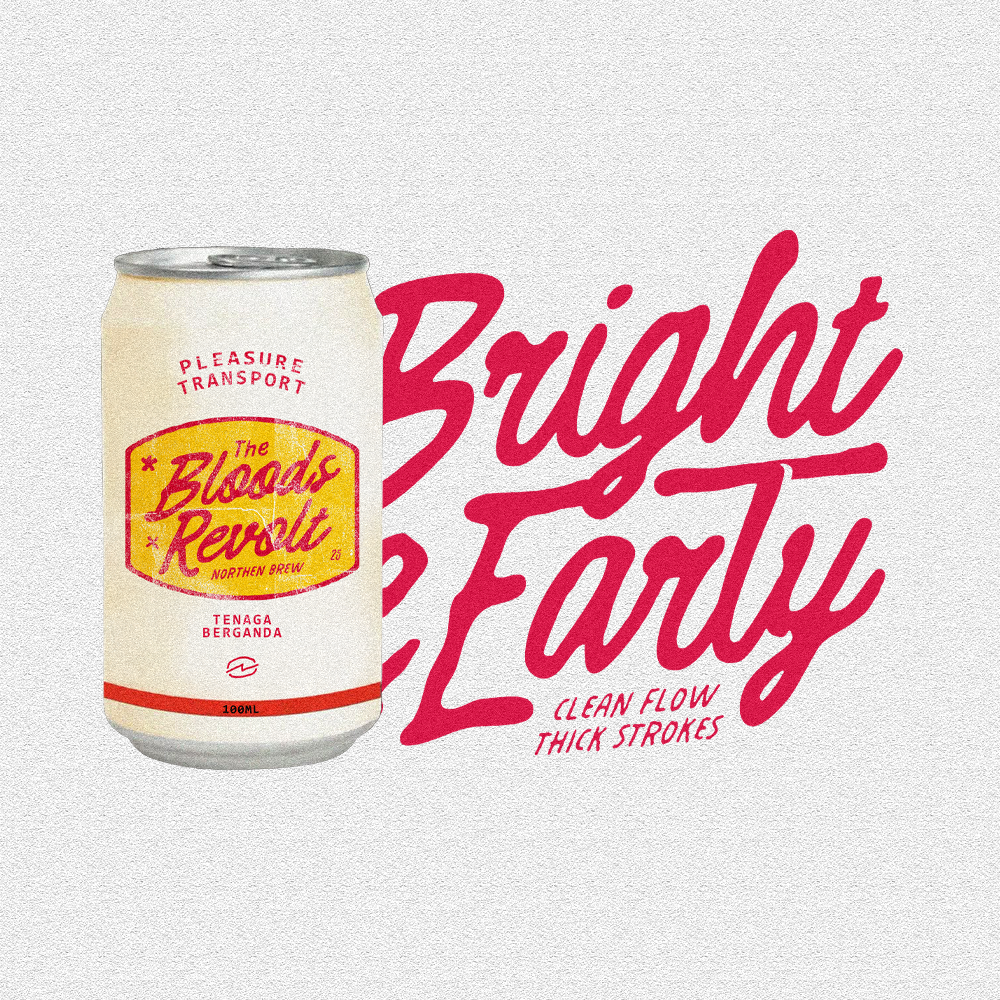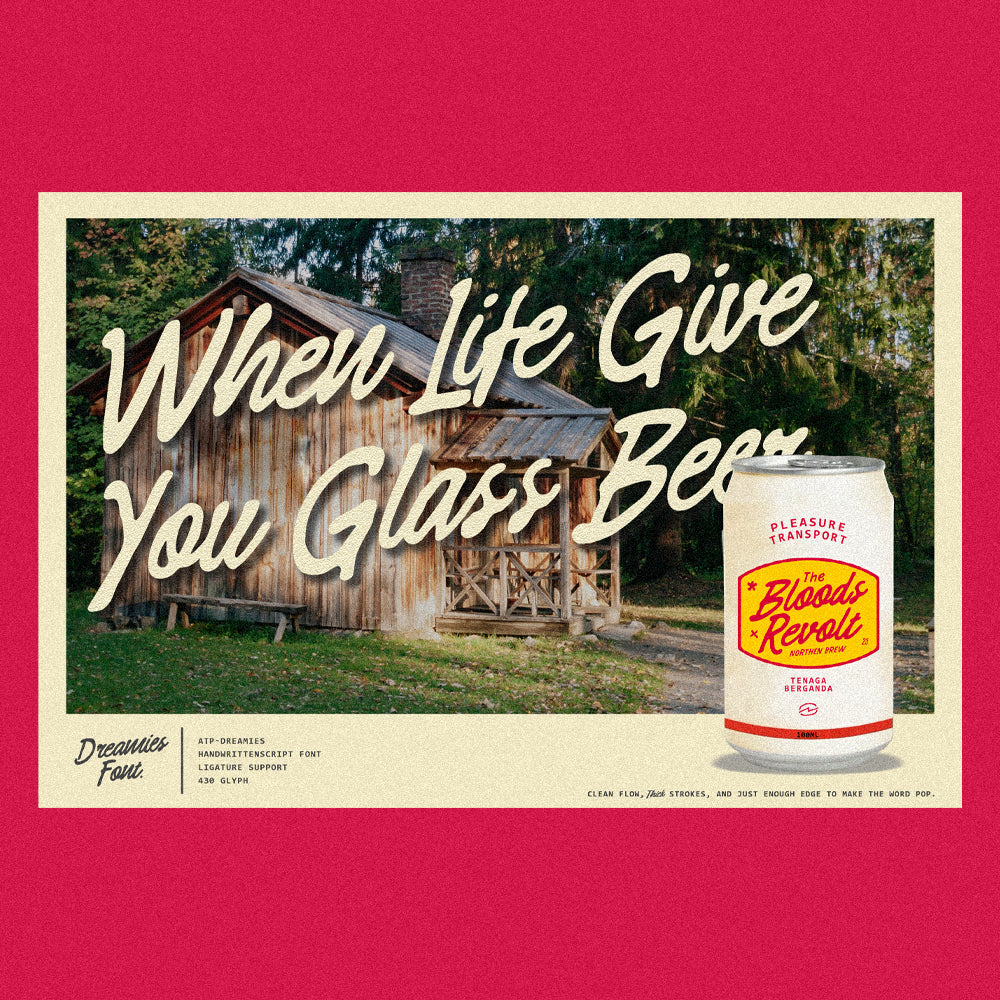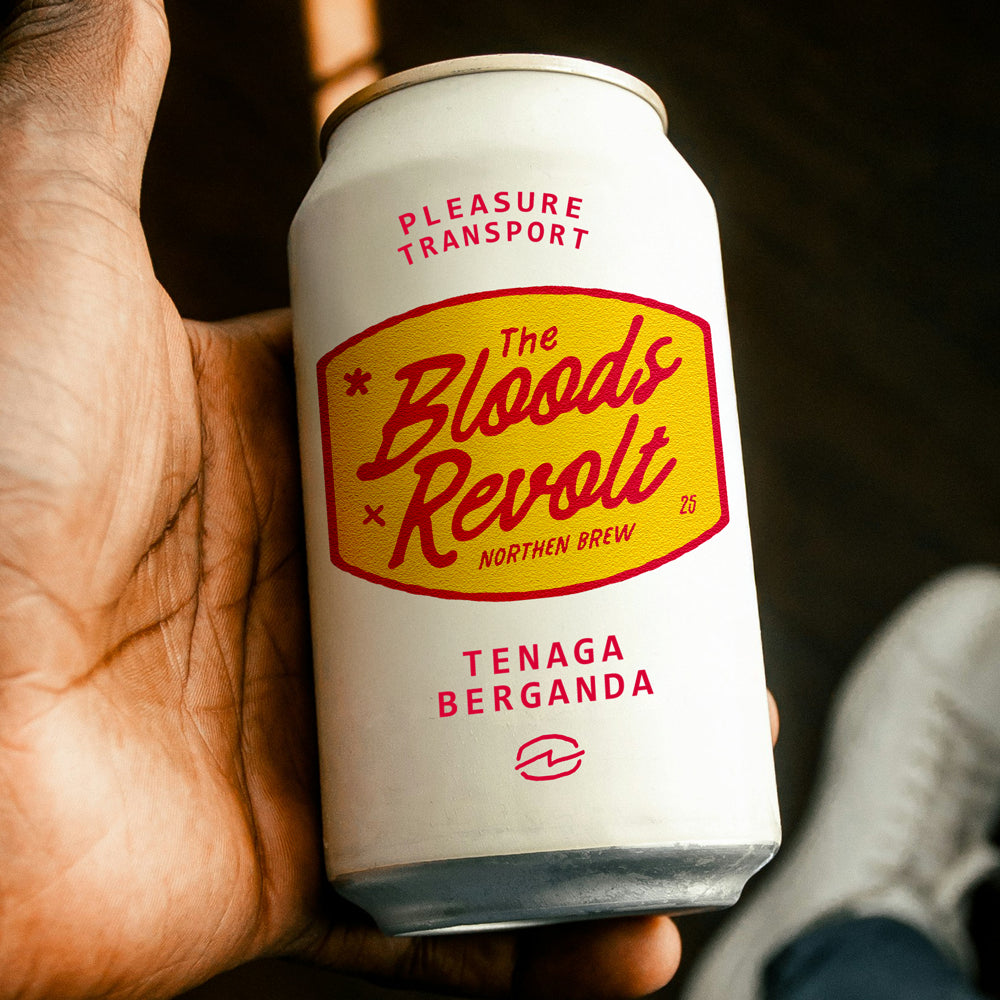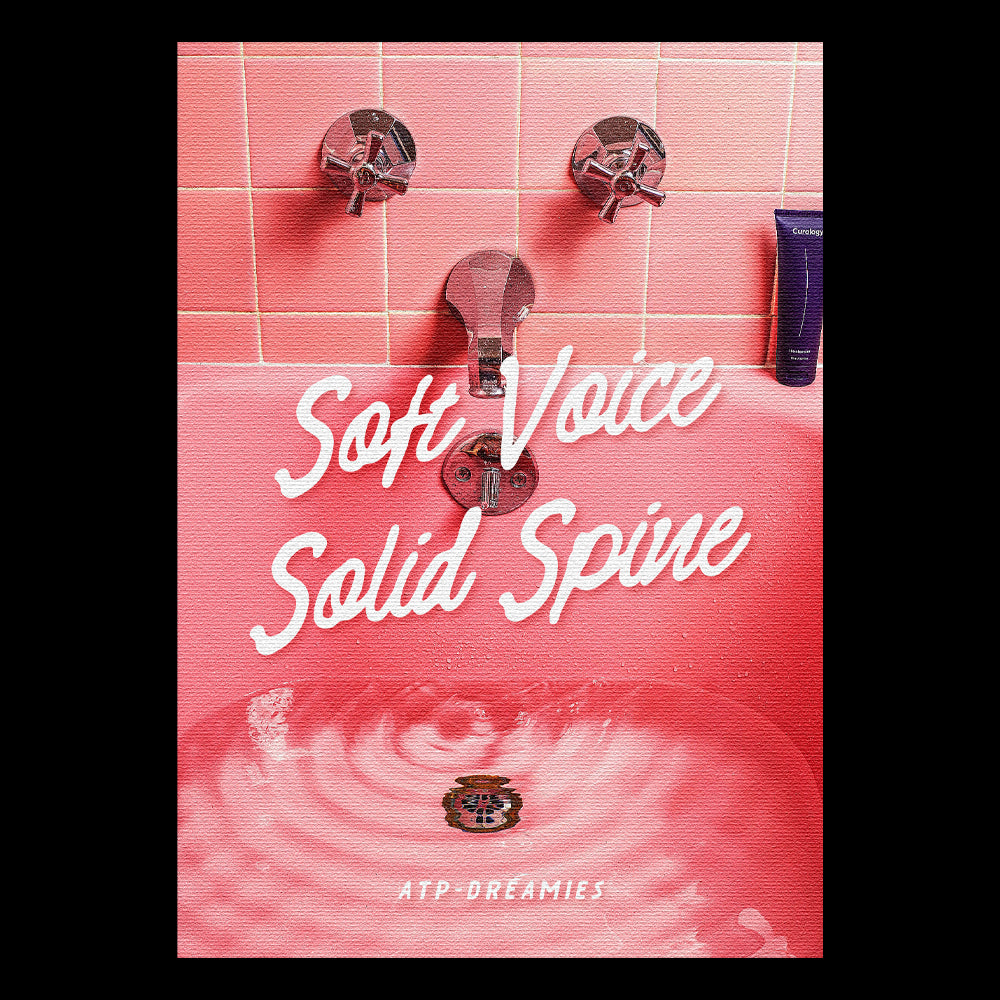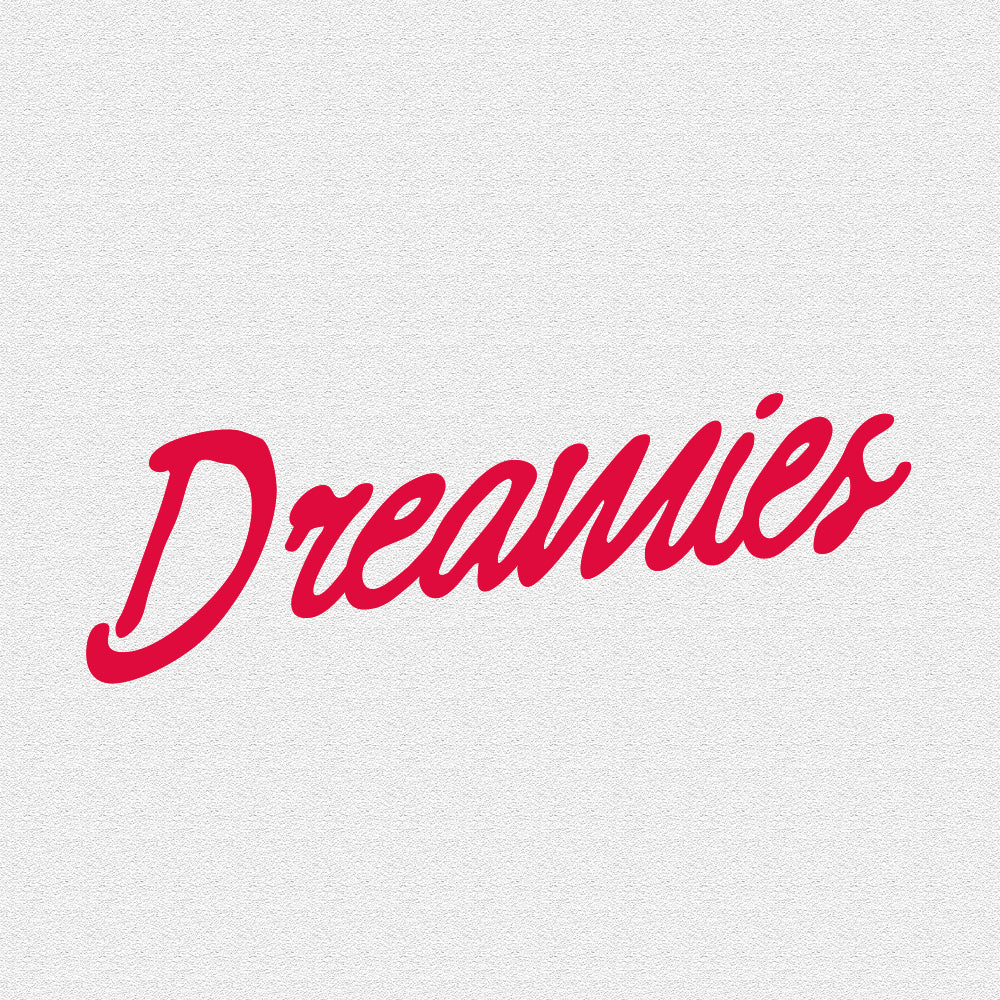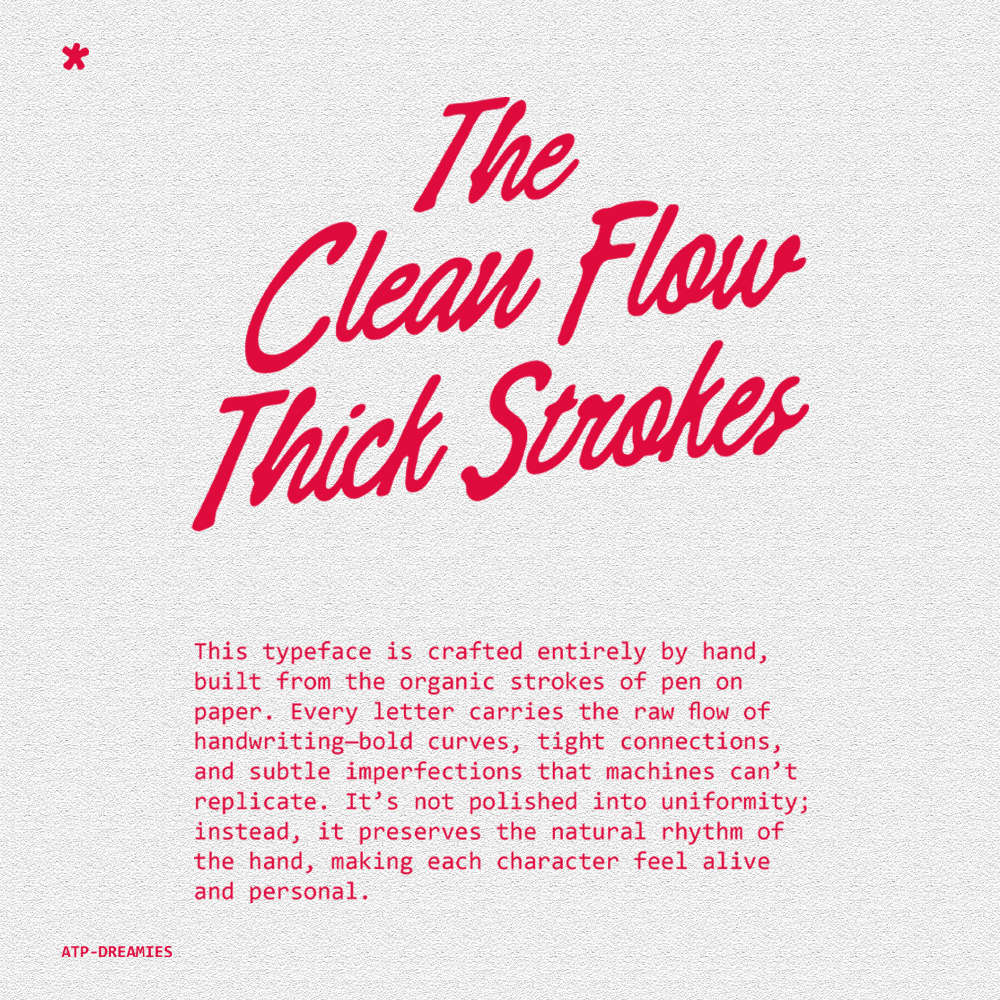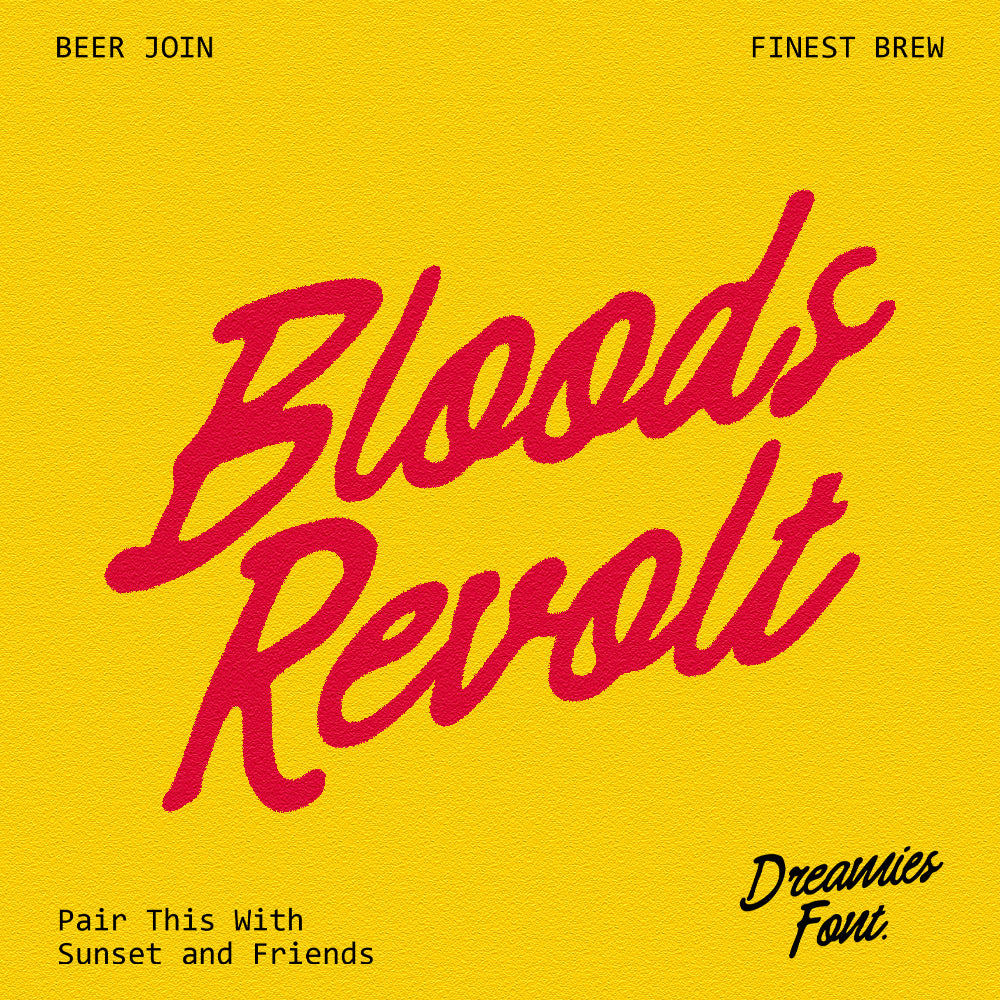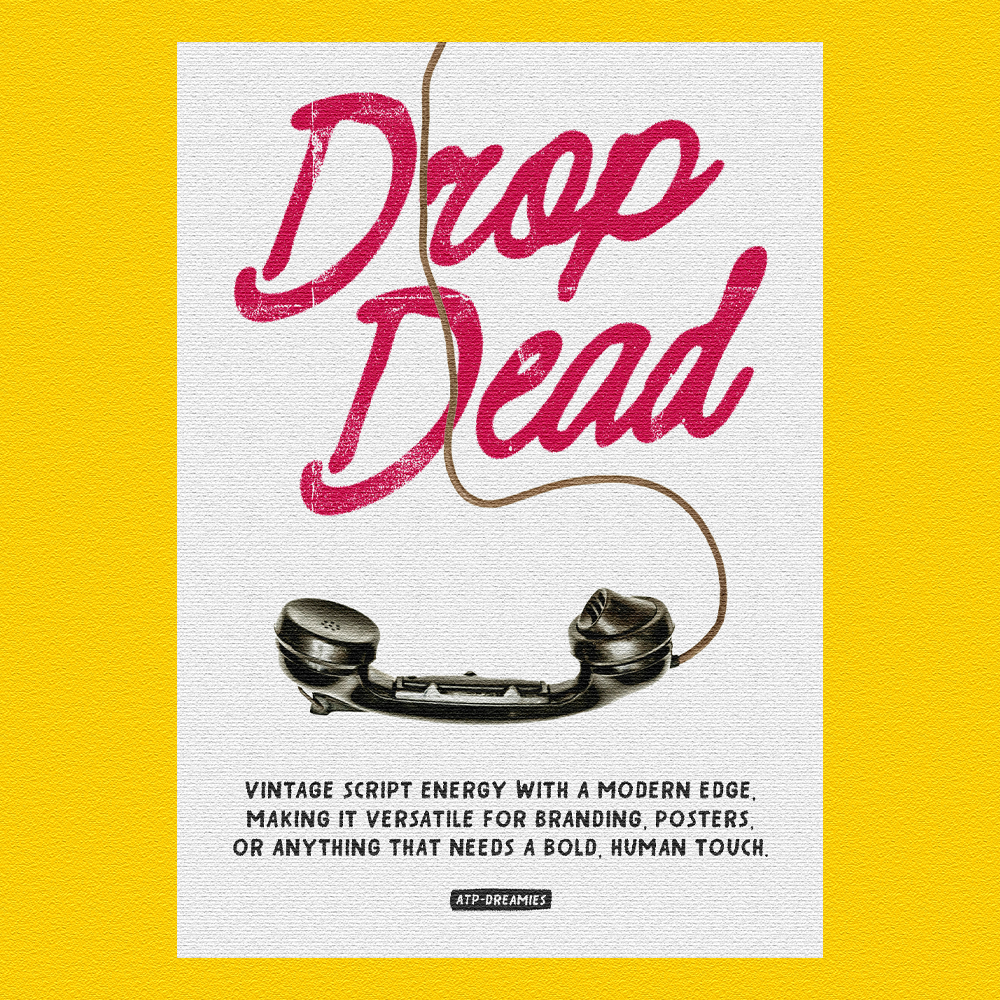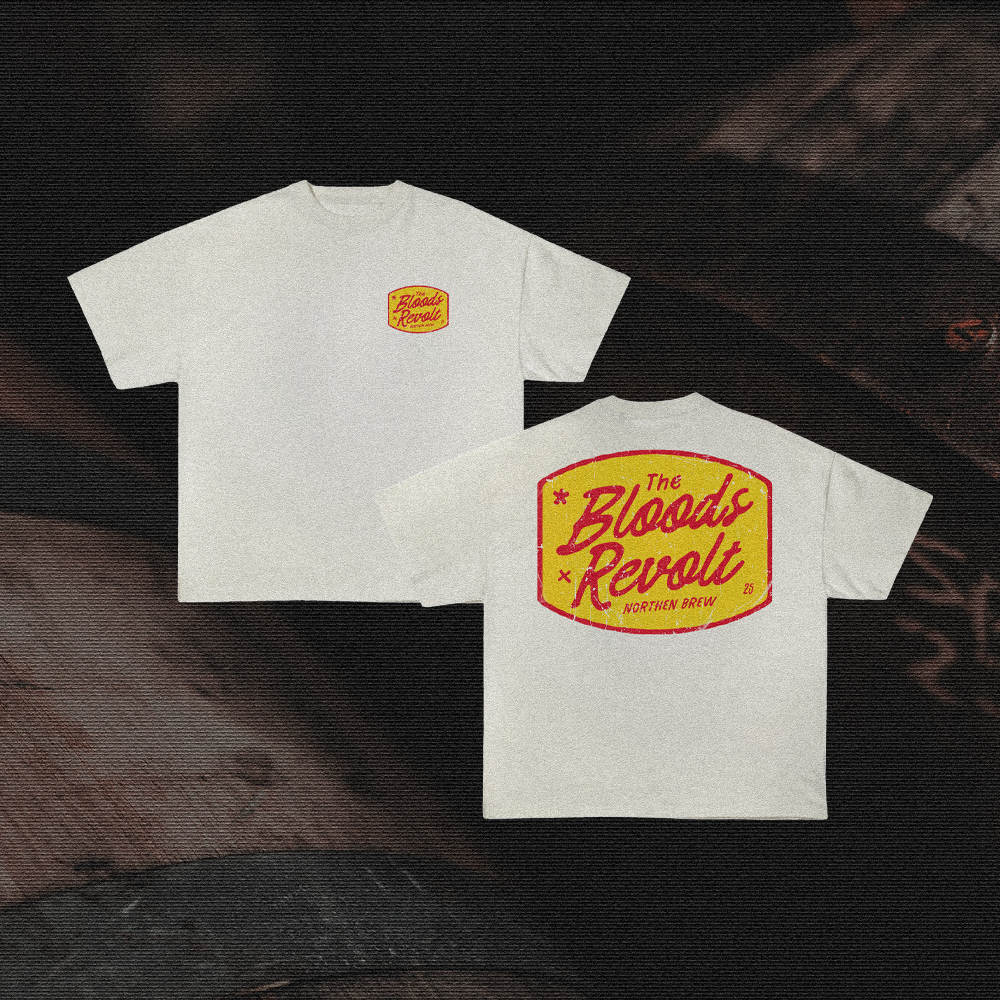
Dreamies - Retro Script Font
Dreamies - Retro Script Font is a handcrafted typeface that features organic strokes and the unique characteristics of handwriting, including bold curves and subtle imperfections. Each letter is designed to reflect the natural flow of pen on paper, offering a personal touch to your text.